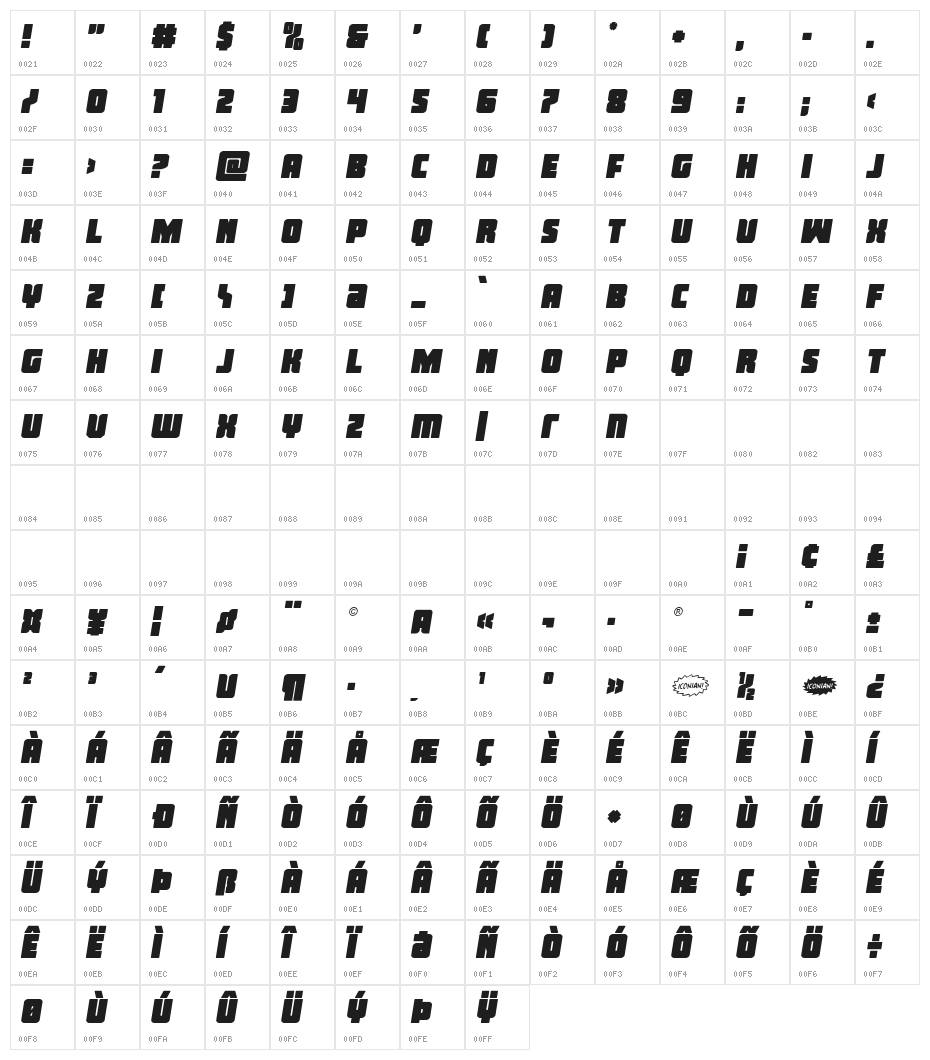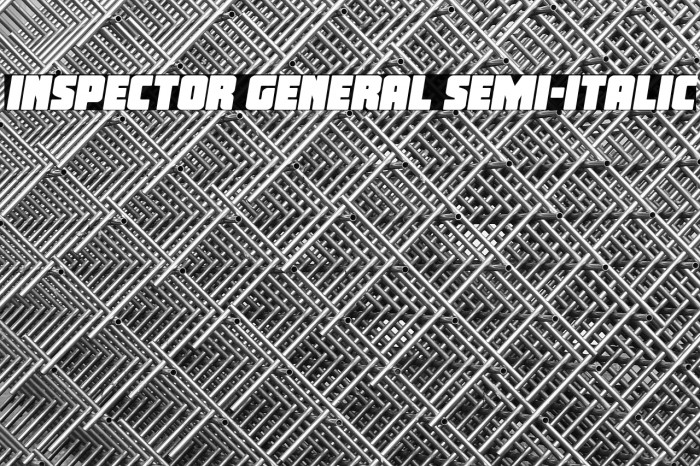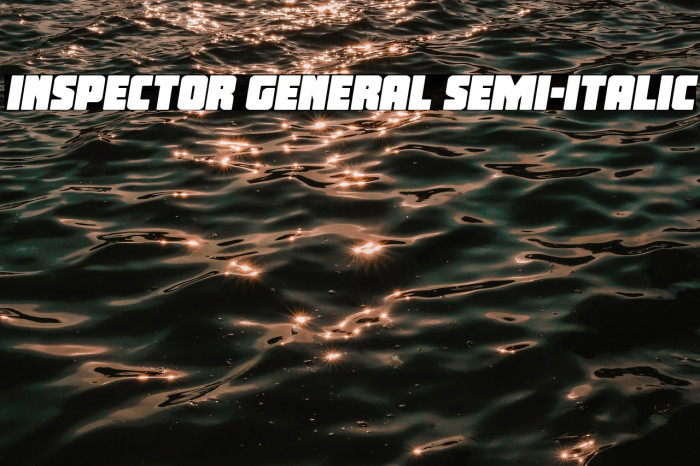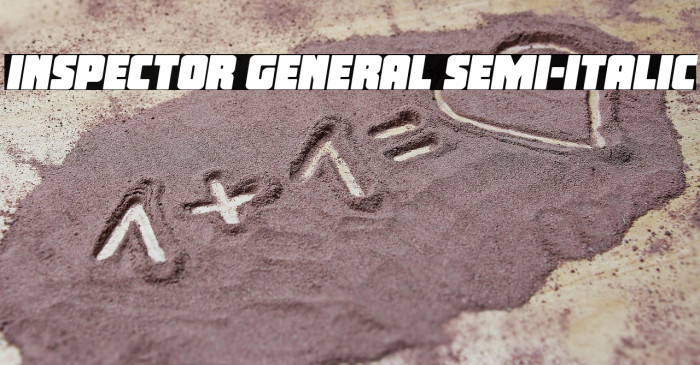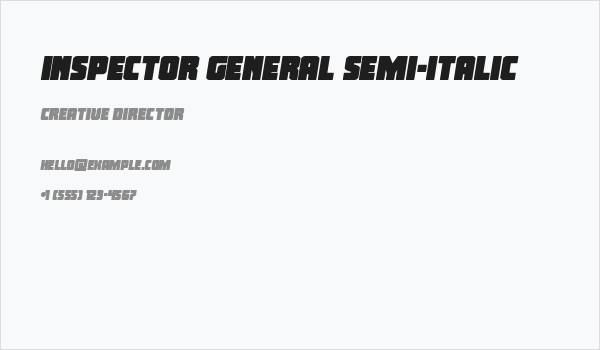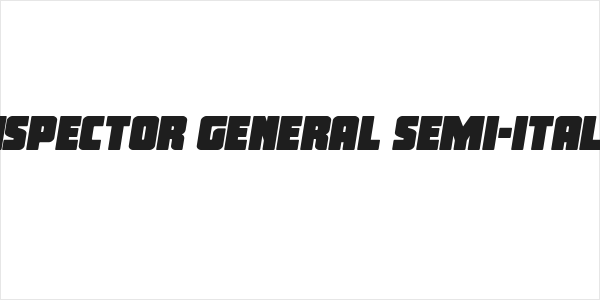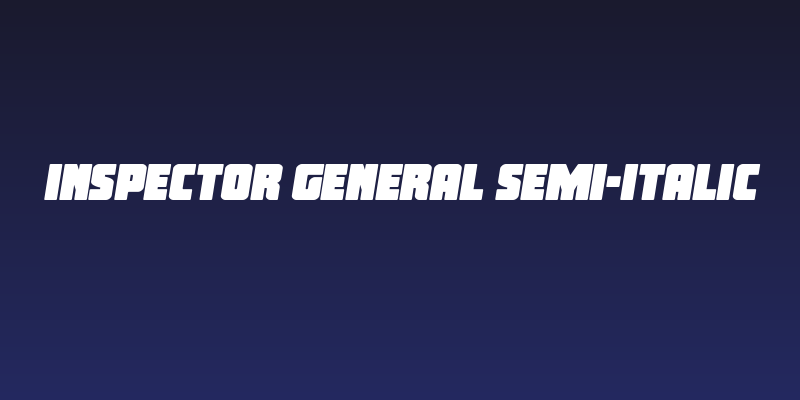
Inspector General Semi-Italic Font
Inspector General Semi-Italic Description
This font features bold, heavy strokes with a semi-italic slant, giving it a dynamic and assertive appearance. The characters are wide and blocky, with a slight forward tilt that adds a sense of motion and energy. The uppercase letters are particularly prominent, with strong geometric shapes that convey strength and stability. The numbers and special characters maintain the same boldness, ensuring consistency across all text. This font is ideal for making a strong visual impact, suitable for headlines or branding that requires a commanding presence.
| Proposed Projects | Ideal for sports branding, action movie posters, or dynamic advertising campaigns. |